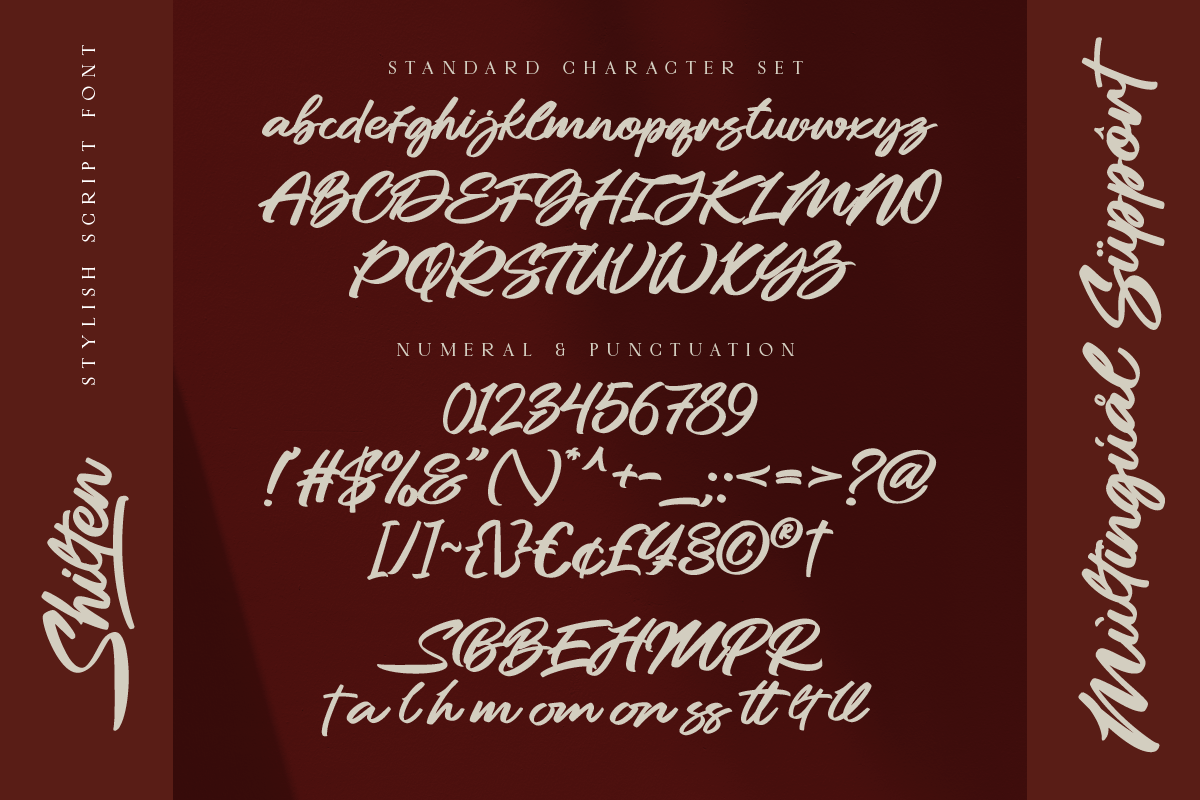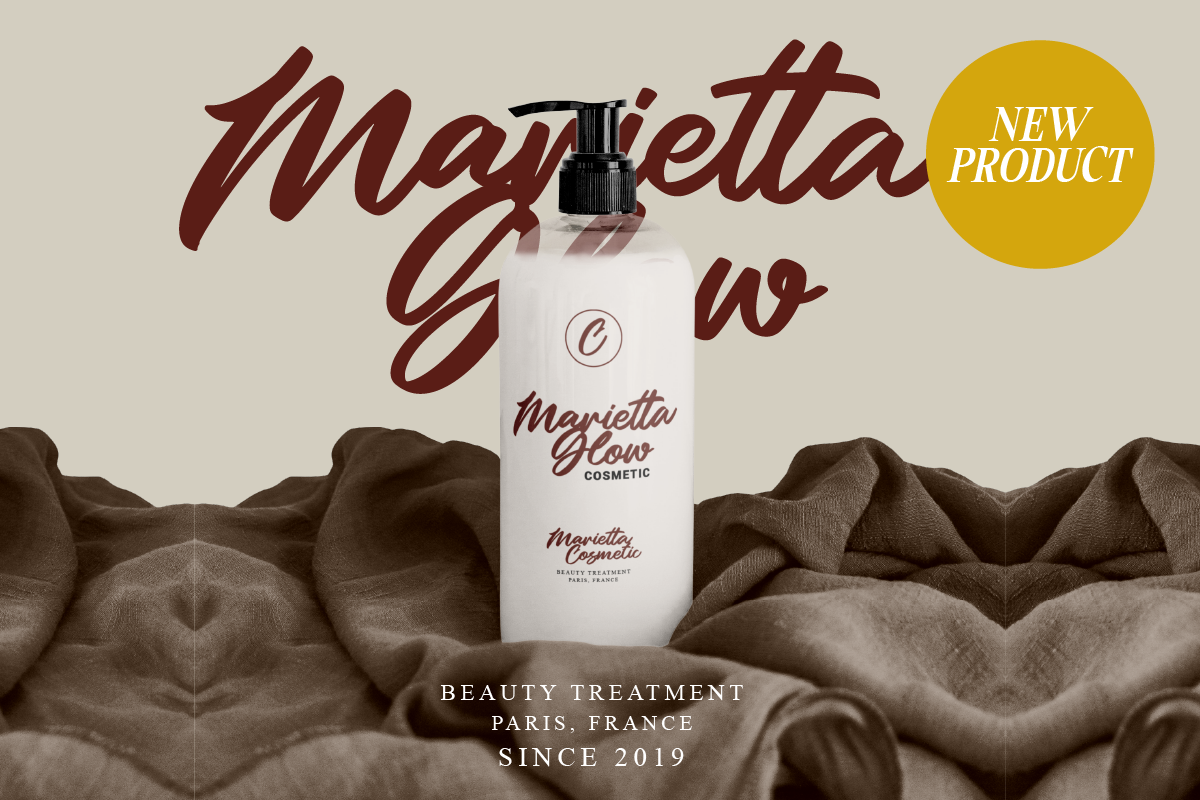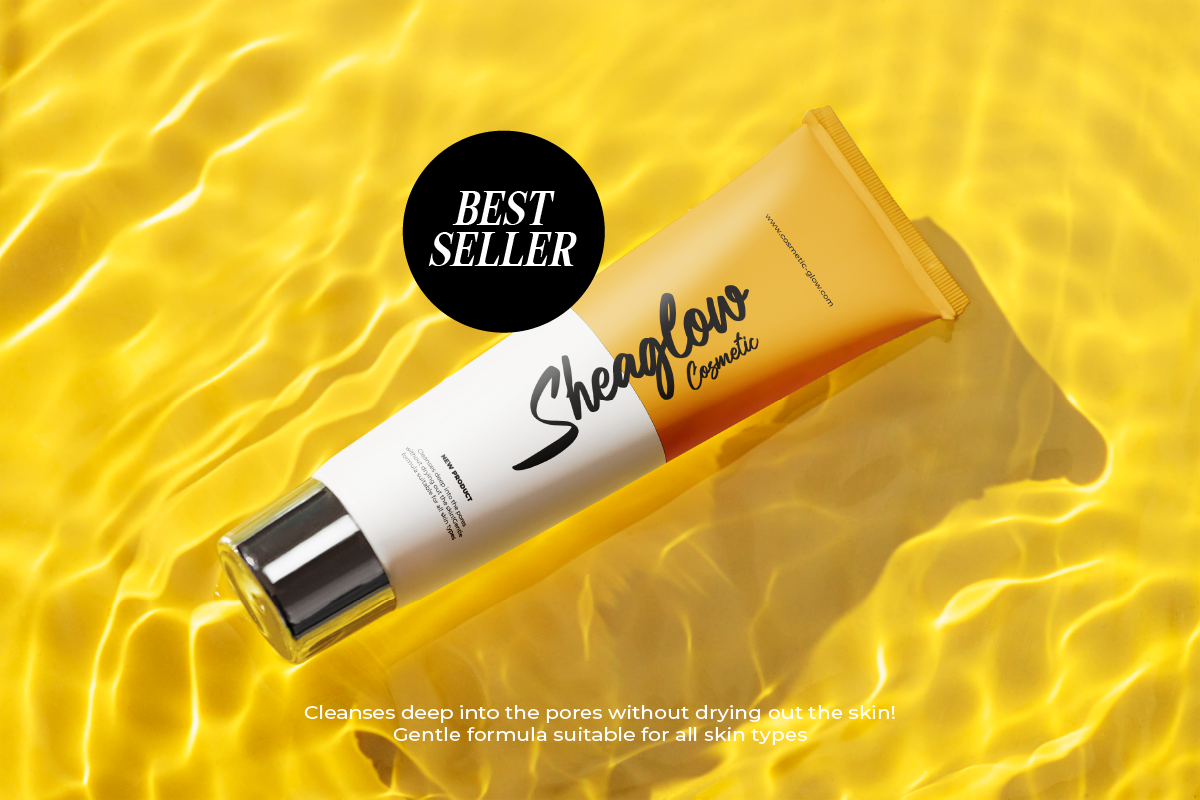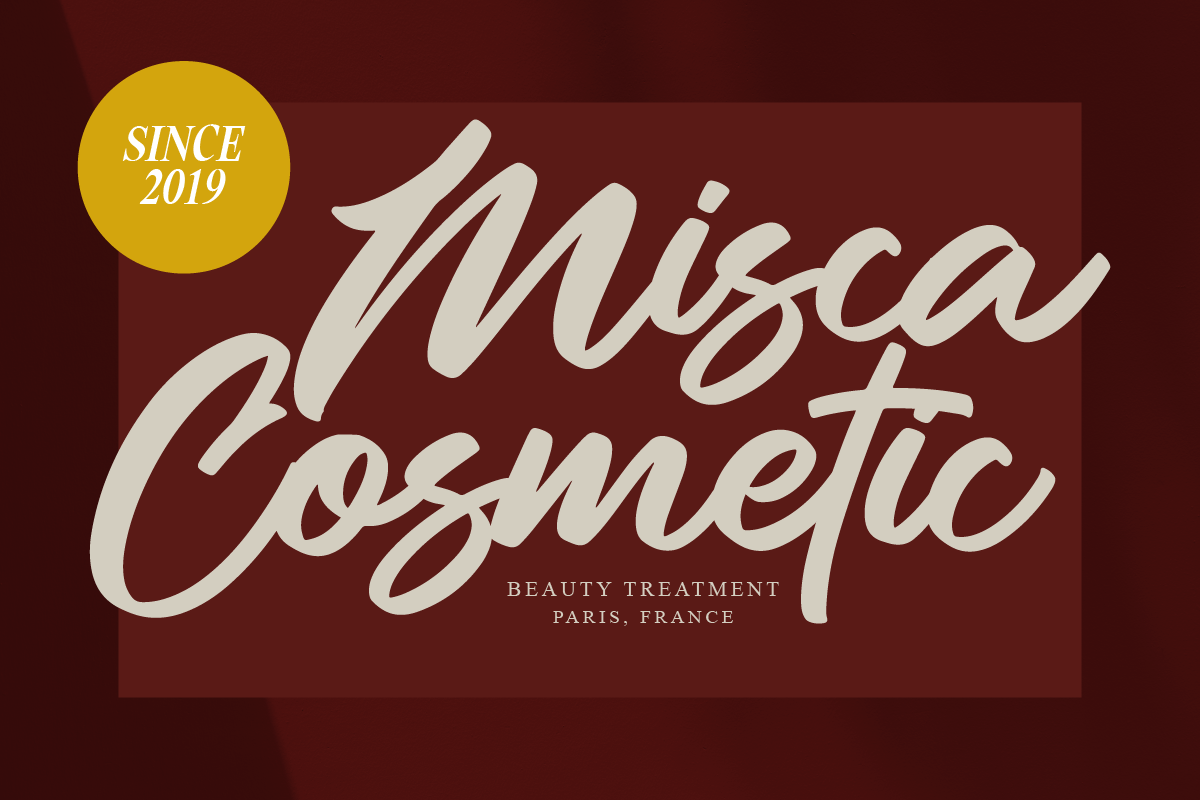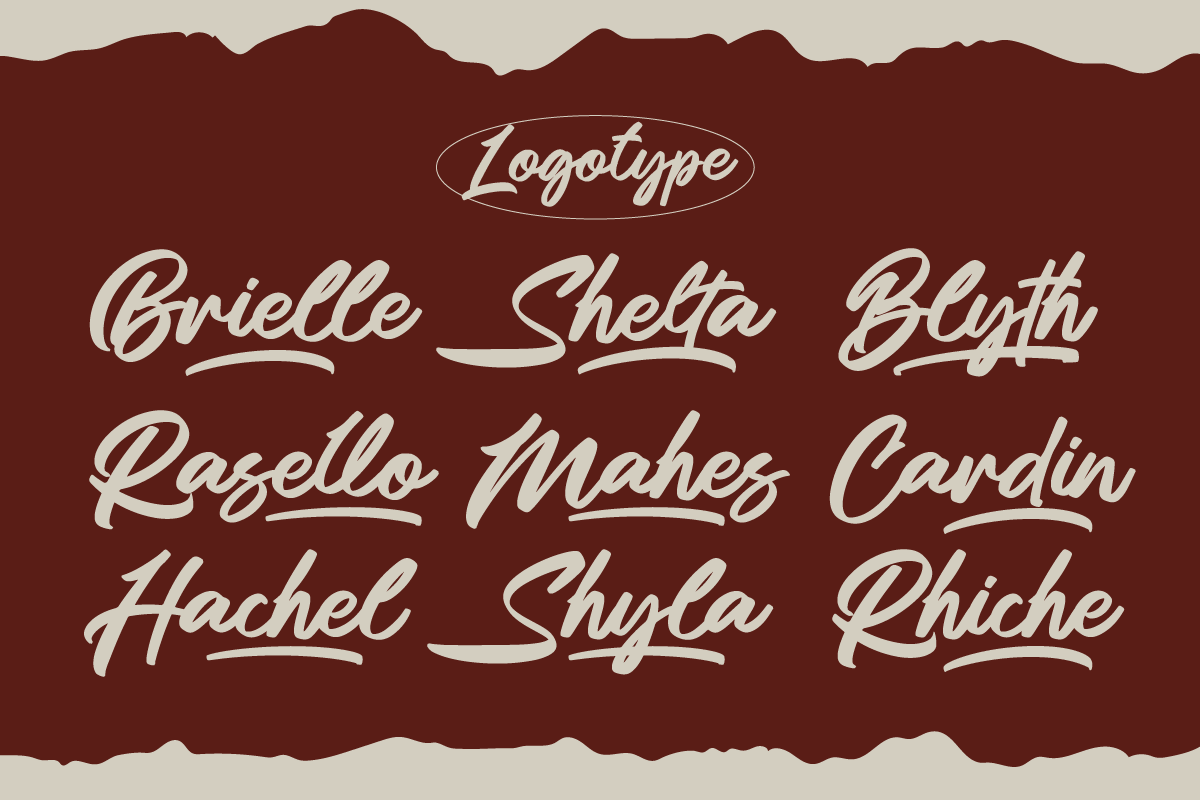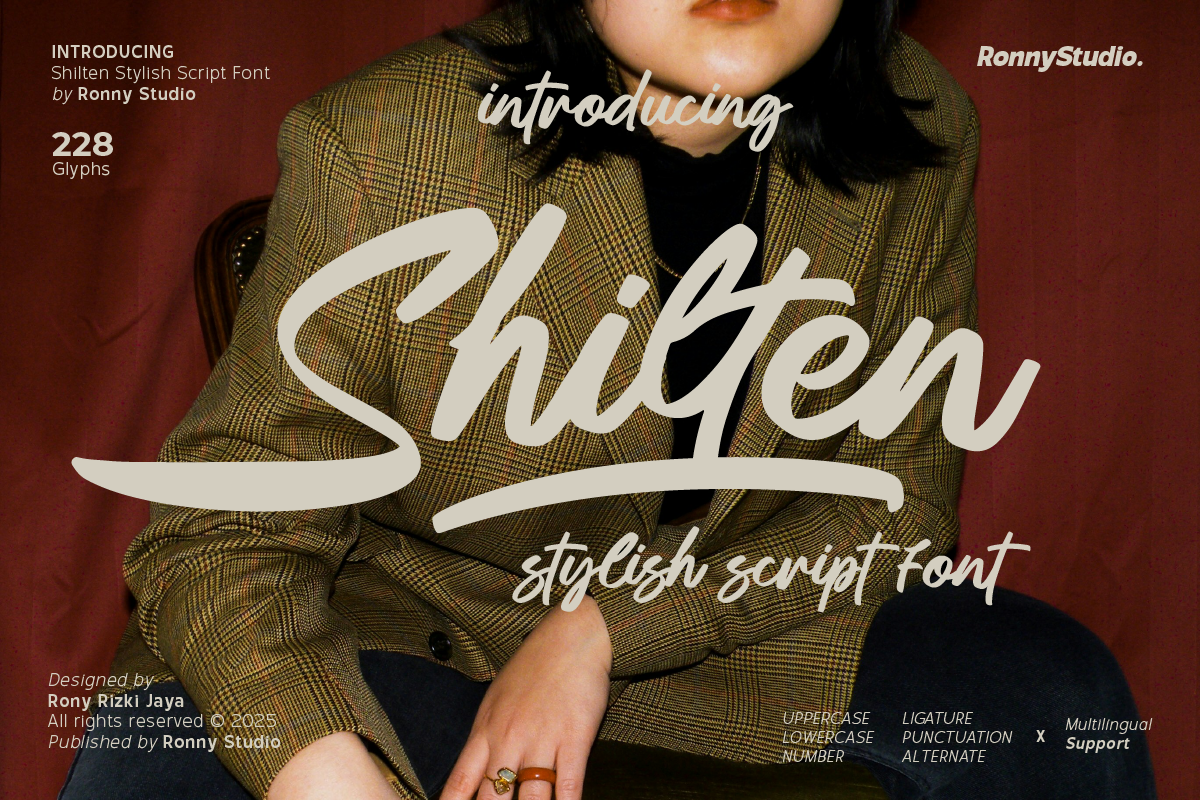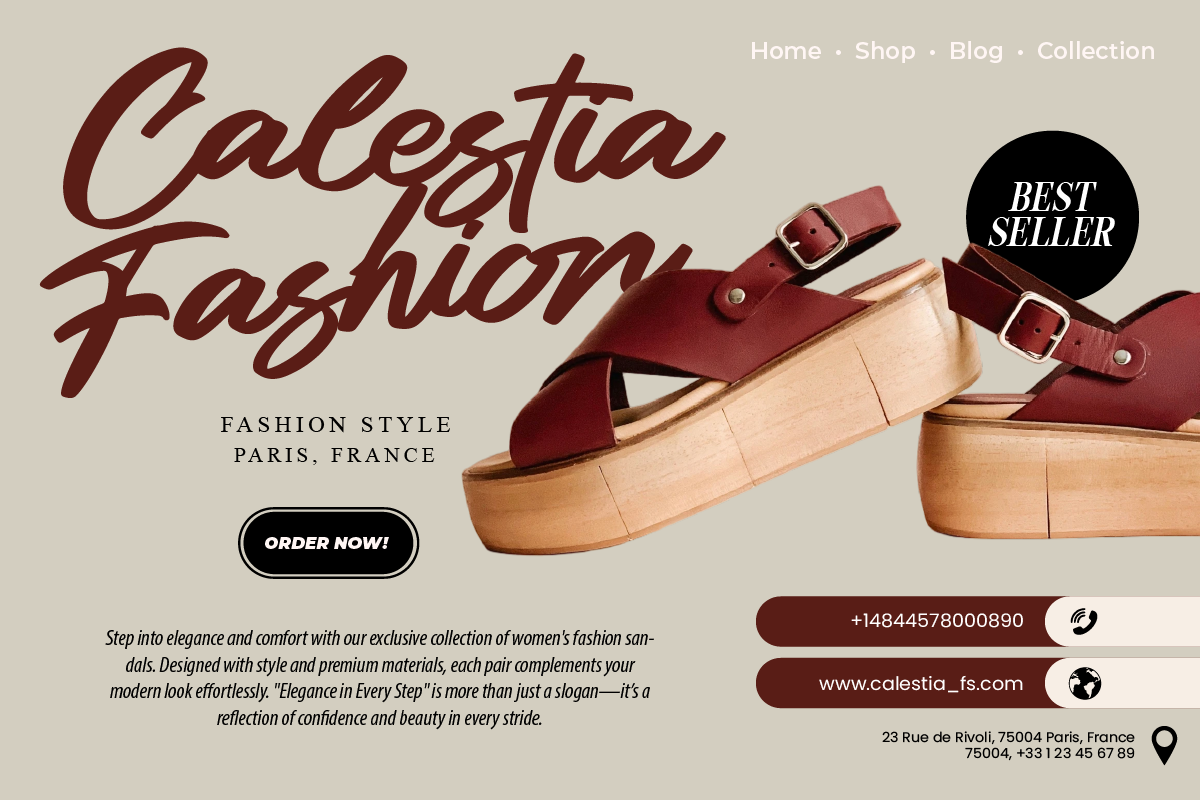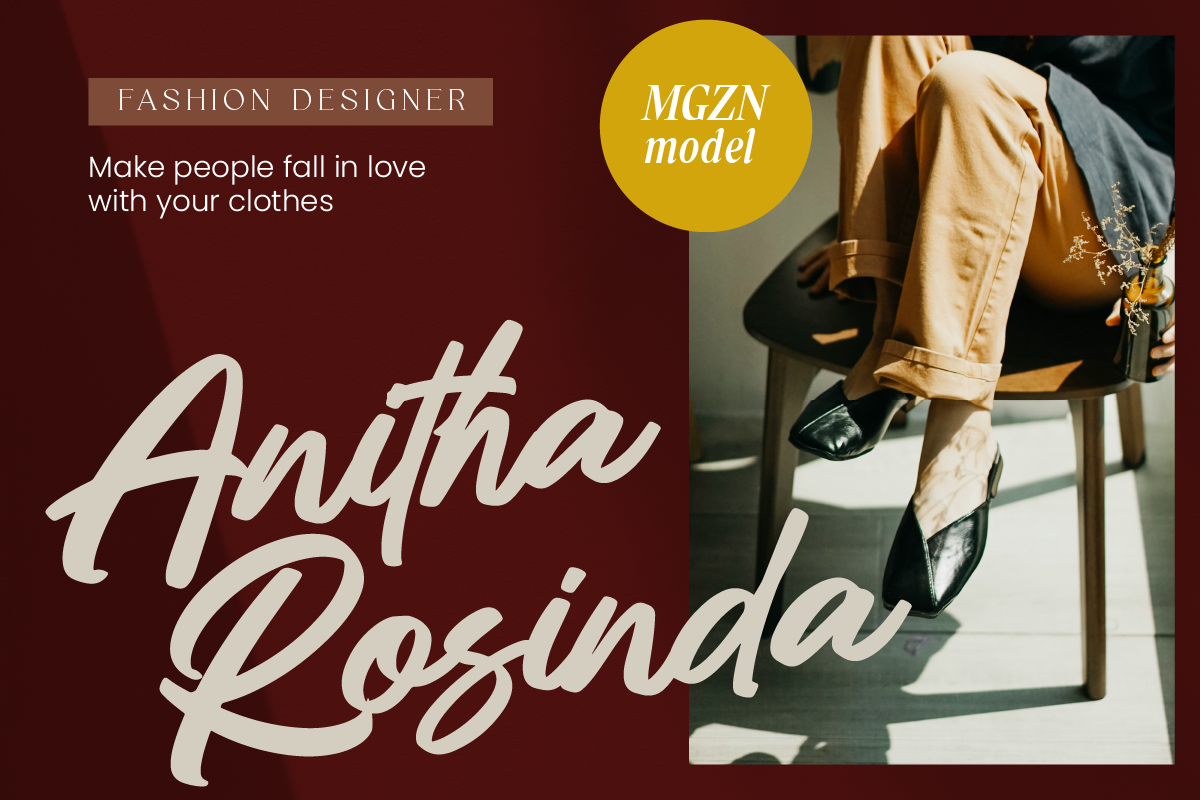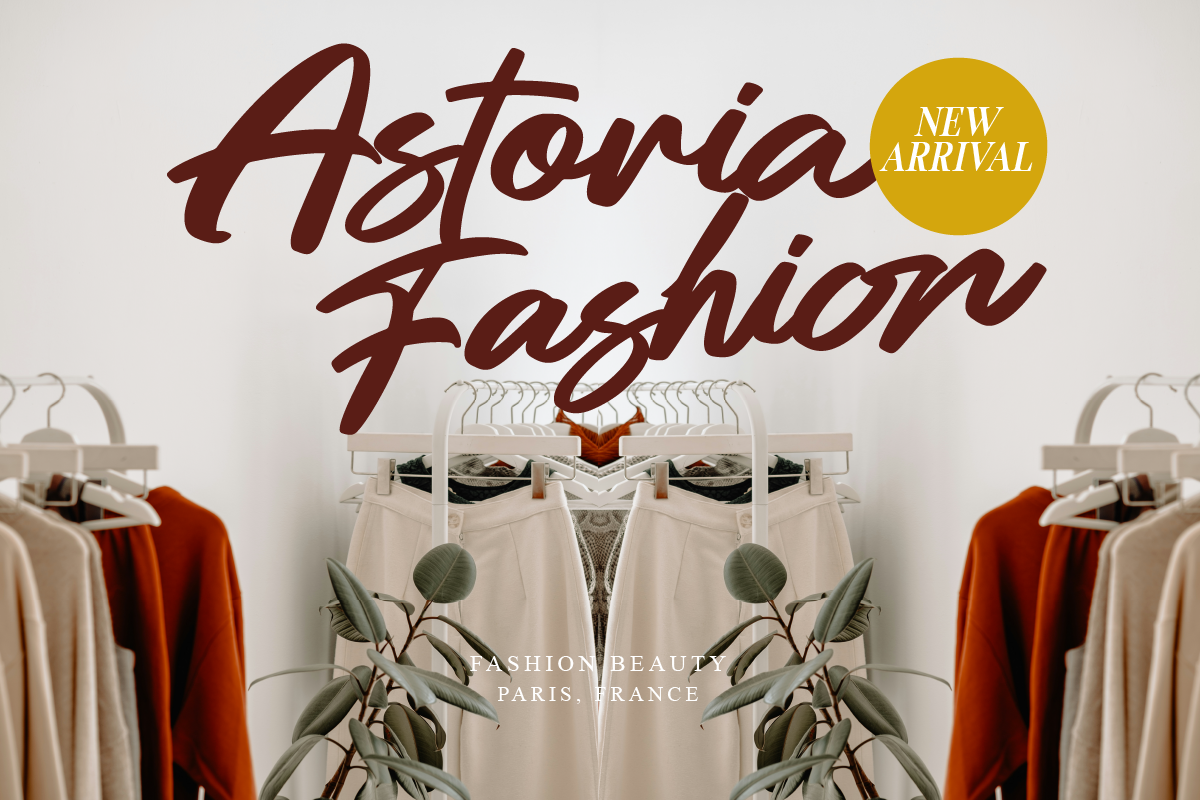
Shilten Modern Stylish Script Font
Introducing Shilten – A Modern and Stylish Script Font
Shilten is a contemporary script font that blends elegance and modernity, making it perfect for a variety of creative projects. With smooth curves and a natural flow, Shilten elevates the visual appeal of your designs, whether for invitations, logos, social media graphics, or branding materials.
Designed to balance beauty with functionality, Shilten offers versatility and exceptional readability. The font supports multiple languages, ensuring your message can reach a global audience.
✨ Key Features:
- Modern Script Style – Perfect for adding a trendy and elegant touch to your designs.
- Natural Flow & Smooth Curves – Ensures visual harmony and legibility.
- Versatile Usage – Ideal for invitations, logos, social media, branding, and more.
- Multilingual Support – Includes accented characters for international designs.
🎨 Perfect For:
- Wedding invitations and stationery
- Modern branding and logo designs
- Social media posts and quotes
- Fashion and lifestyle campaigns
- Editorial layouts and magazine covers
- Event posters and promotional flyers
Elevate your designs with Shilten – a stylish and modern script font that captures attention.